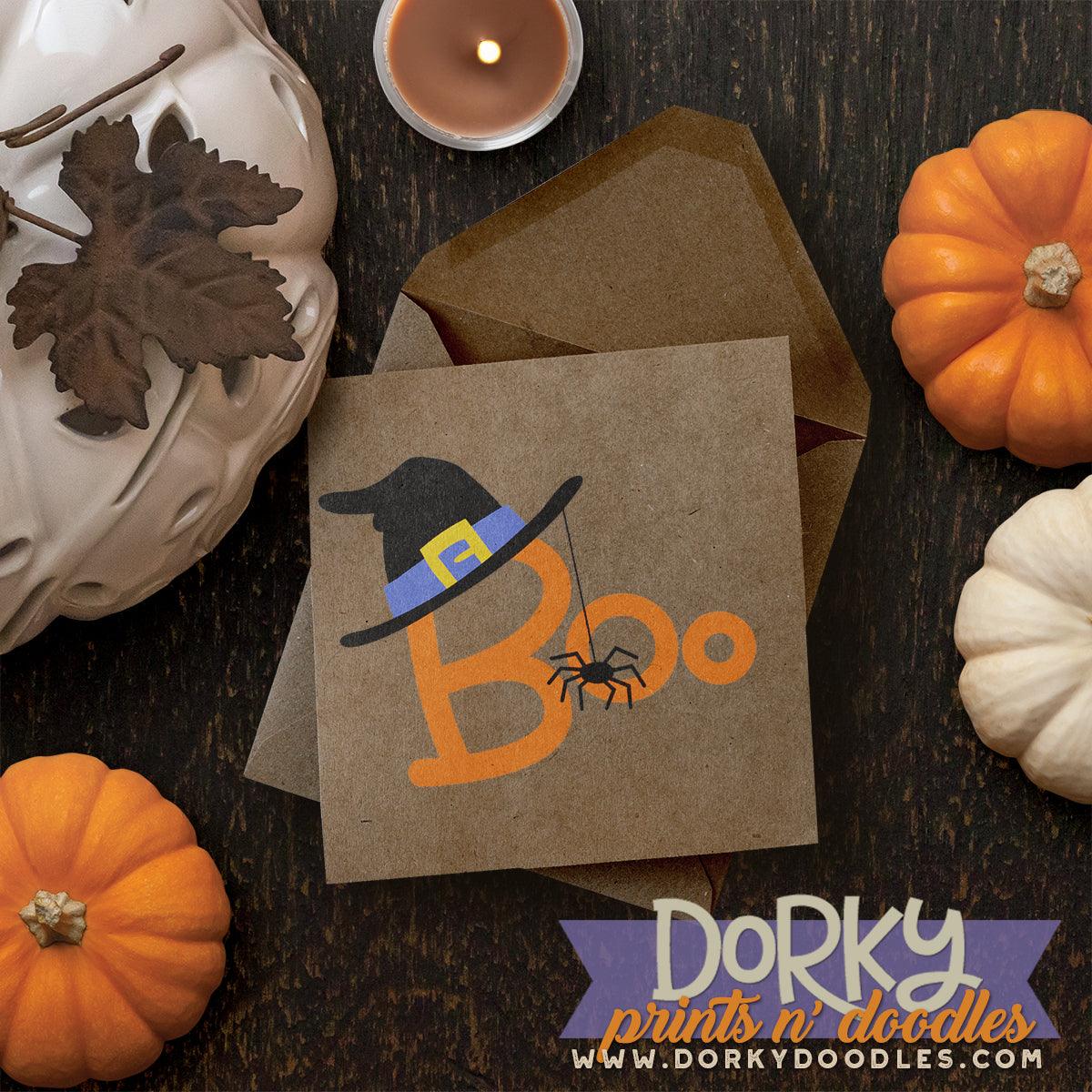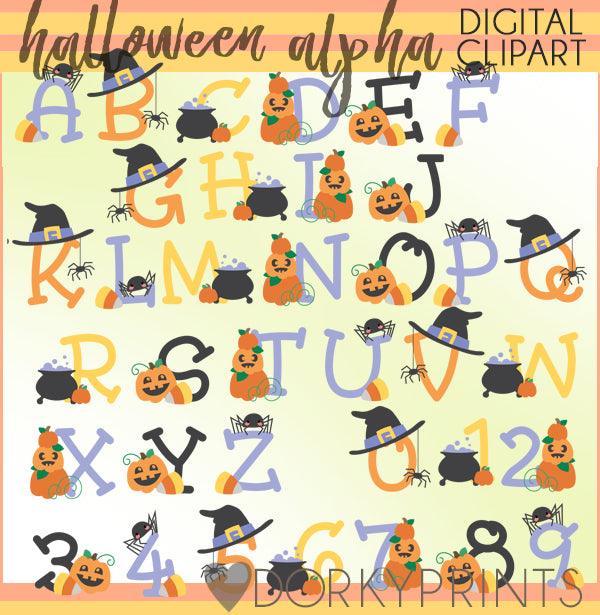
Halloween Alphabet Clipart
These cute pumpkin, witch, and spider letter and number images look fabulous in scrapbooks, party invitations, and holiday decor! You will get 36 Digital Clip Art images in high resolution PNG format (they come as a ZIP file that you can download instantly once payment has cleared).